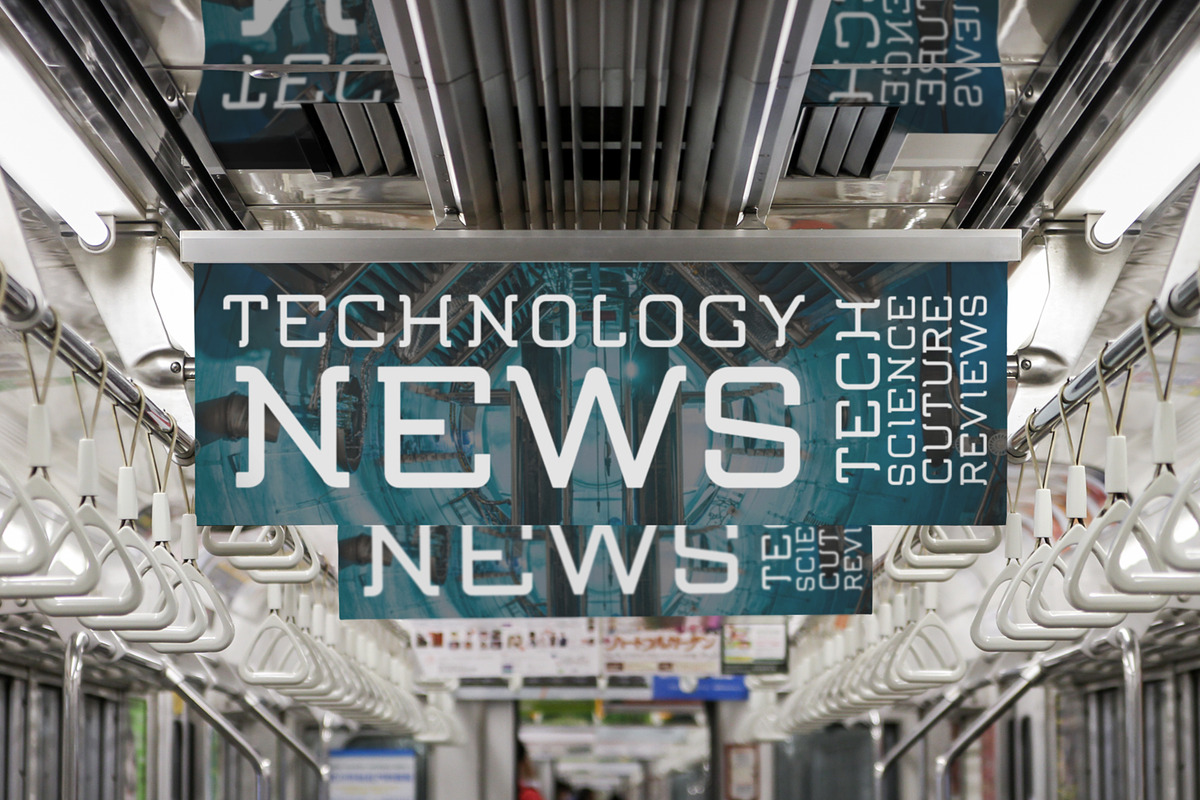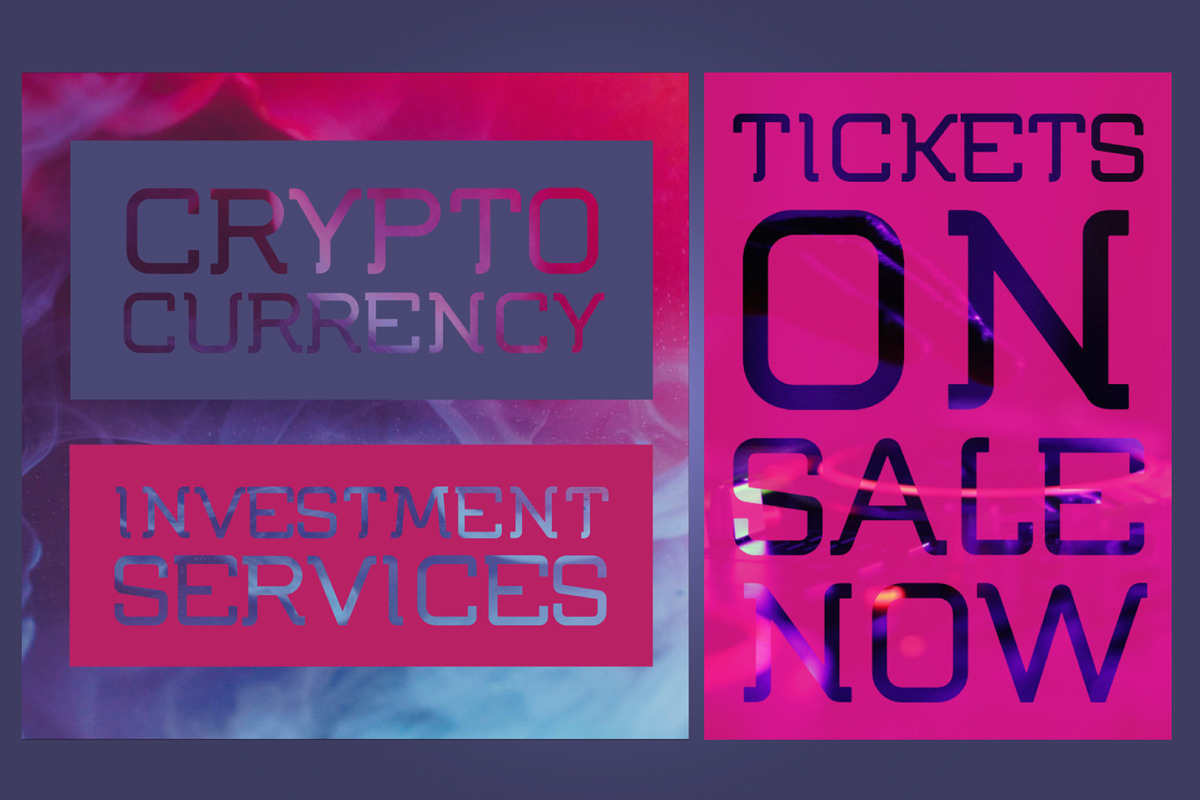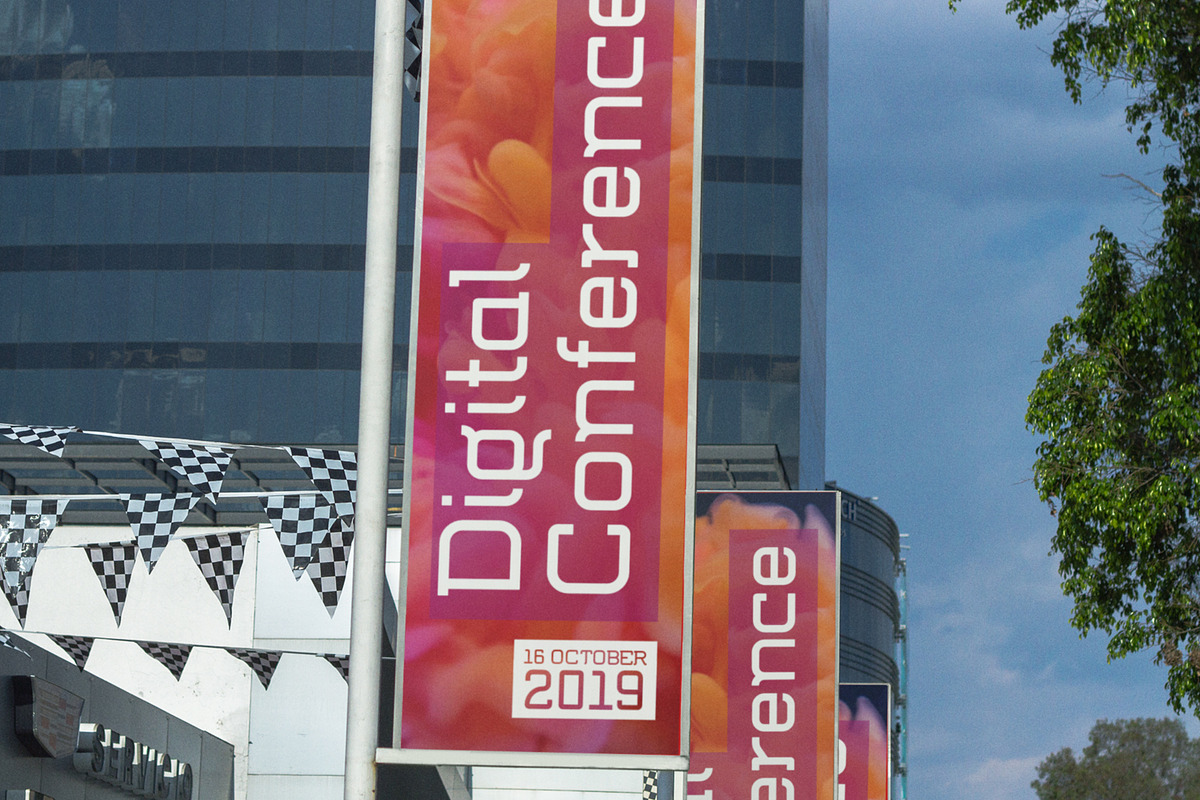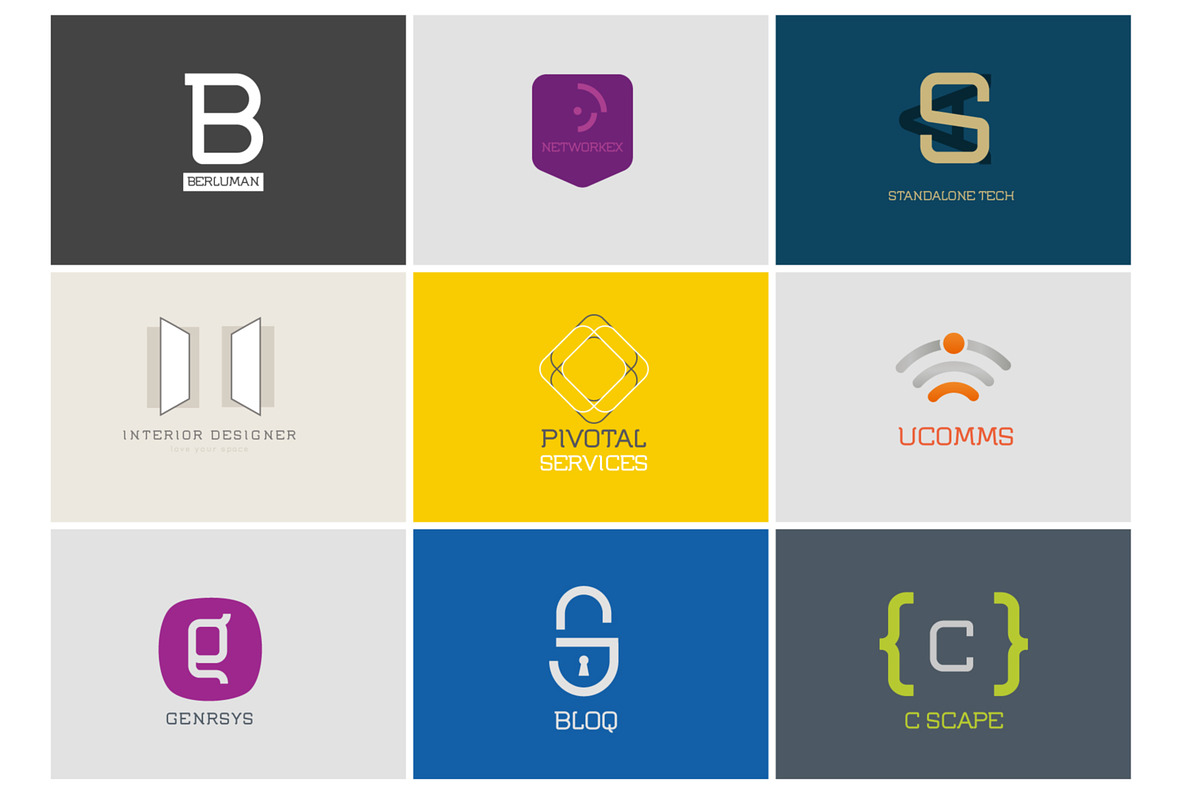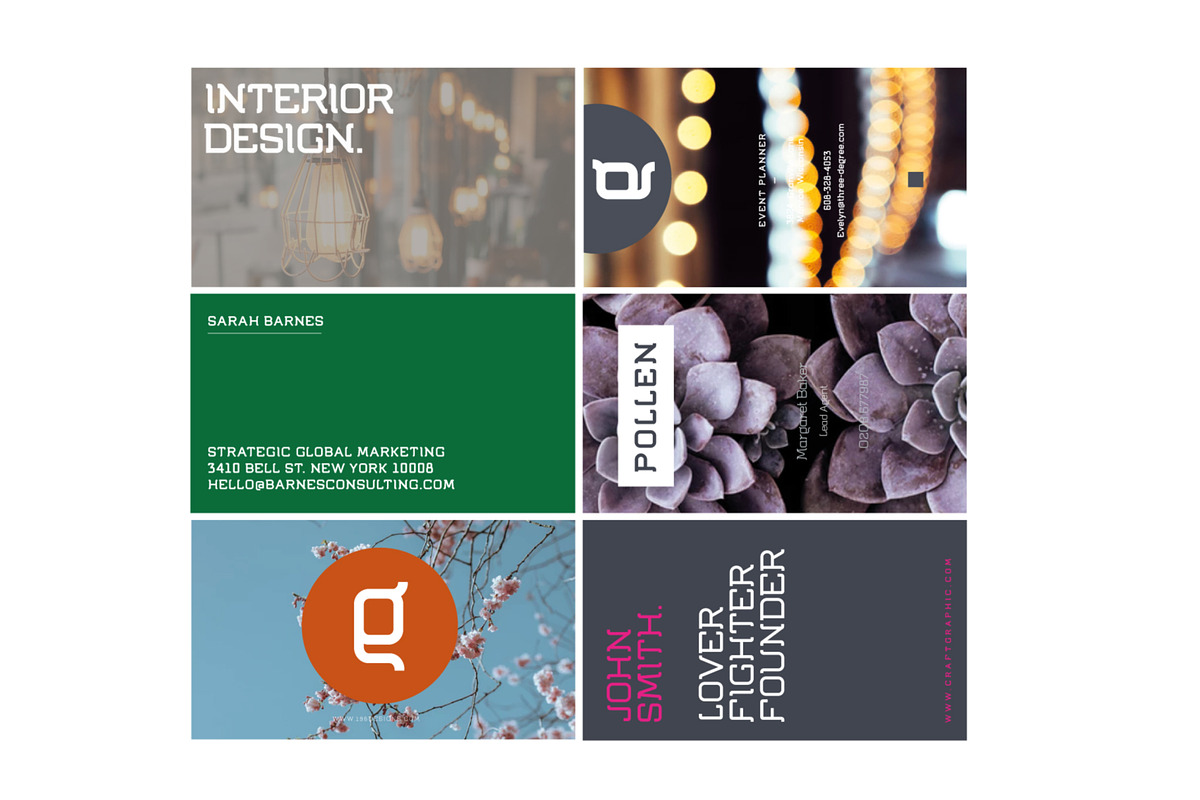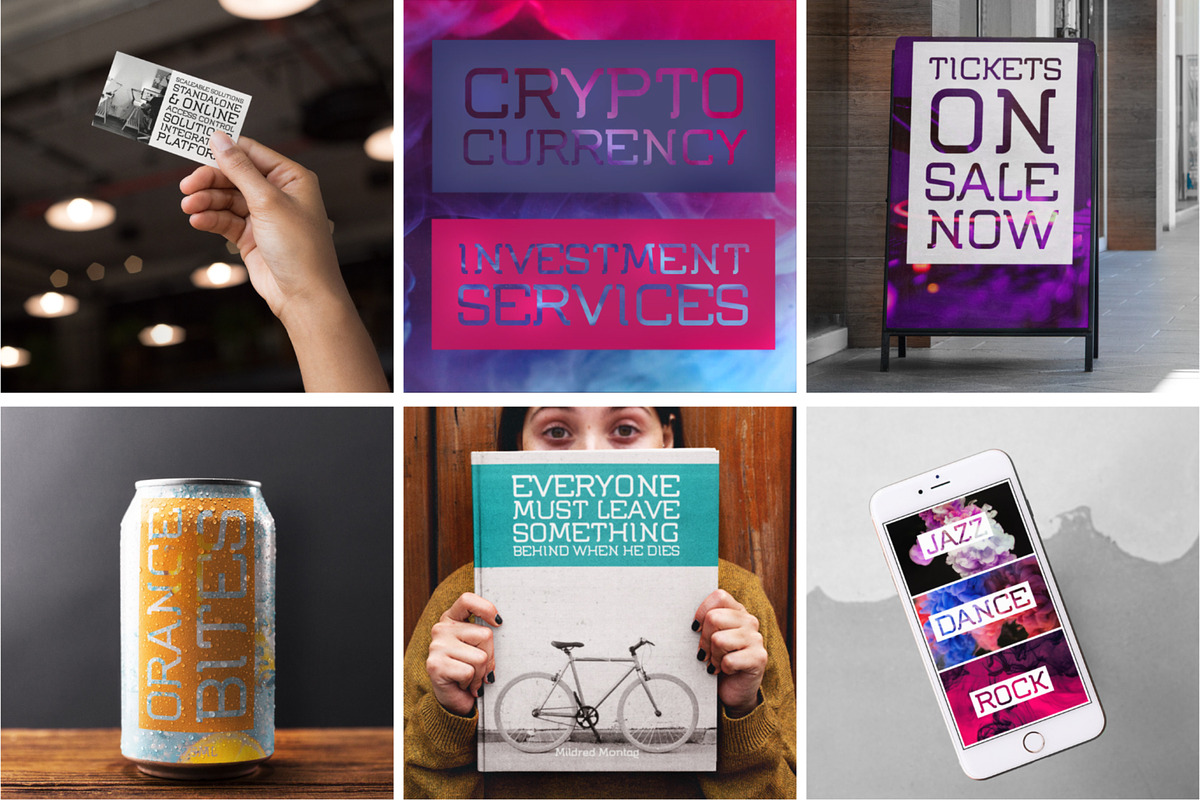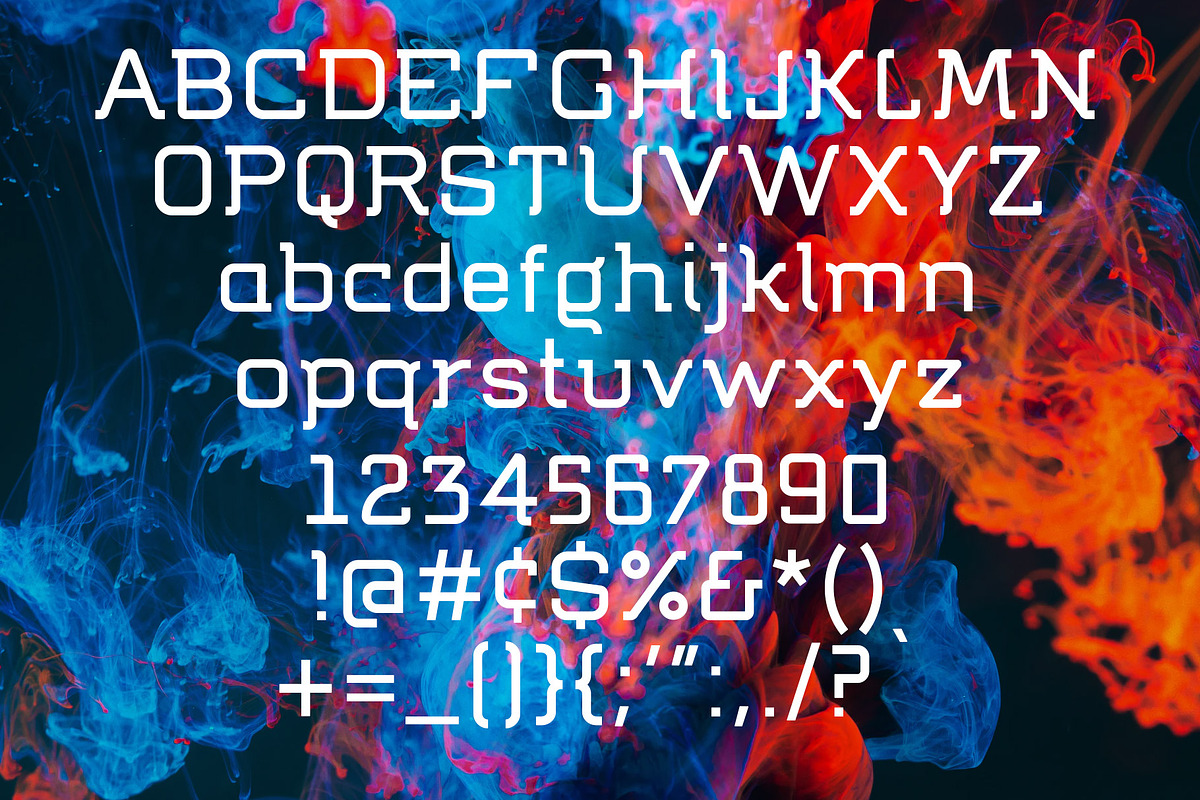
Flumen | Tech Logo Font
Flumen font family have a minimalist and technological look font ideal for tech businesses and identities. Born from our work in Branding and Identity Design, and the need for a font for a technology company identity, the work grew into a font.
Flumen has open and geometric letter shapes, and overall rounded finishes, whilst the serifs provide an impact, making it strong in headline usage, logos and identities. Flumen: meaning to flow in a stream or current, describes the process of creating this font.